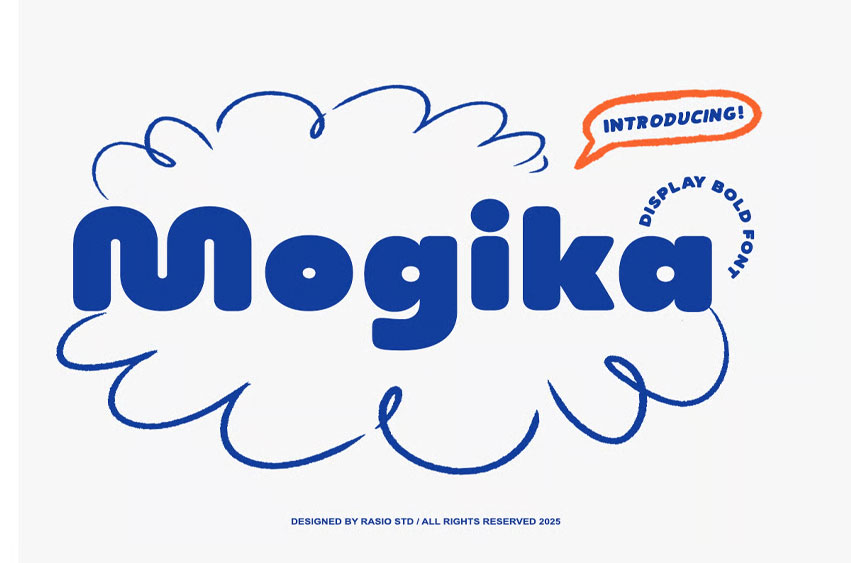
Mogika Rounded Font
Mogika Rounded Font Bold Display Font is a cheerful and confident typeface featuring thick, rounded letterforms and smooth geometric construction. Its soft edges and solid shapes deliver a sense of warmth and playfulness while maintaining modern readability. The bold weight makes it stand out for logos, headlines, and creative titles. Designed to express fun and energy, Mogika fits perfectly into playful branding, children’s packaging, and eye-catching promotional visuals.
Relevance and Use Cases is perfect for playful branding, food packaging, kids’ products, fun posters, cartoon titles, creative advertising, and any design that seeks a bold and approachable personality.